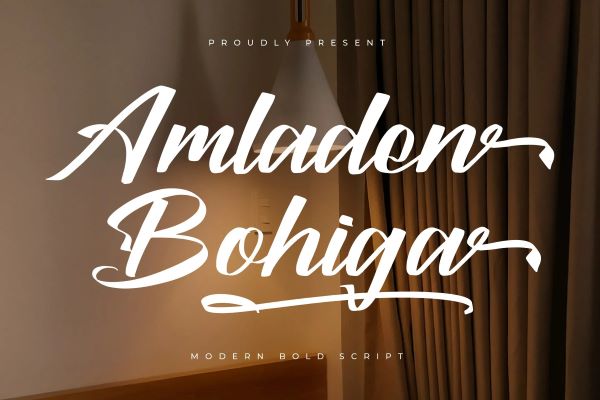
Amladen Bohiga Font
Amladen Bohiga font
Amladen Bohiga Font is a modern bold script typeface featuring smooth curves and confident strokes. Its stylish handwritten energy makes it ideal for logos, branding, social media graphics, posters, and designs that need a strong yet elegant script appearance.
➤ Font Name: Amladen Bohiga
➤ Designer: Letterena Studios
➤ Style: Calligraphy